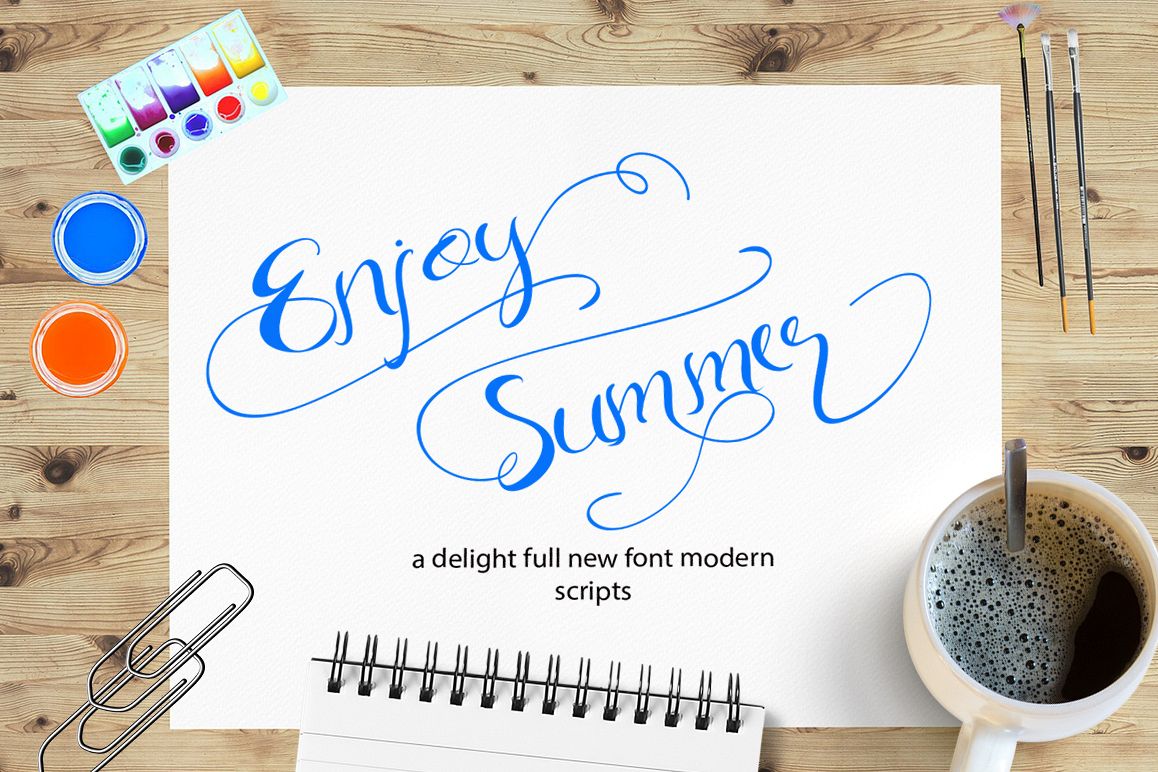
Enjoy Summer
Enjoy Summer is carefully crafted font and every single letters have been carefully crafted to make your text looks awesome. With lot of alternate glyph will make your word feel like natural hand drawn. This font can be used for quotes, poster, wedding, branding, logo, fashion, apparel, letter, invitation, stationery, etc.
Enjoy Summer features with 378 + glyphs. Stylistic Sets, alternates and multiple language support.